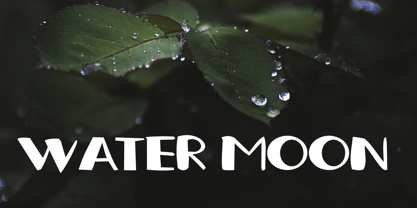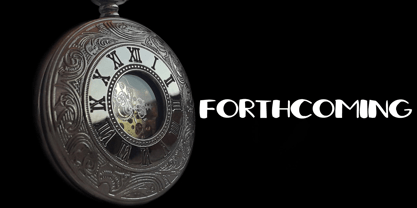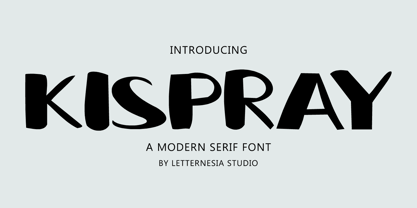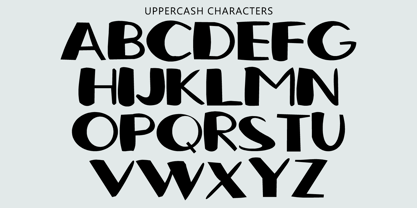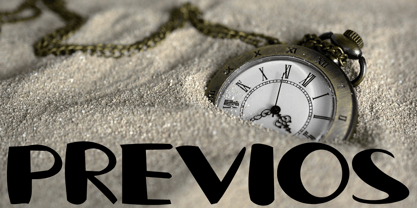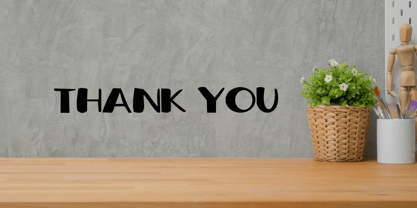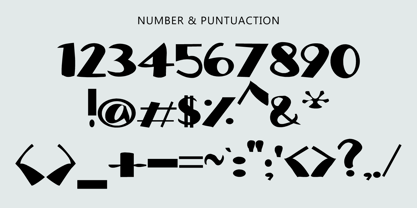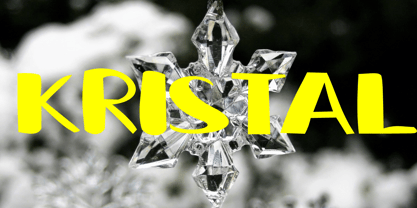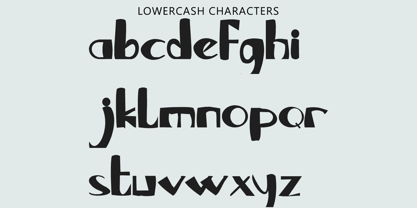
Kispray
by Letternesia studio
The Kispray Font Family was designed by Ta Siyo and published by Letternesia studio. Kispray contains 1 styles. More about this family
Kispray is an elegant and characterful display font, inspired by the soft, refreshing spray of perfume. With letterforms that are smooth yet firm, Kispray brings a feminine, clean, and modern feel—perfect for beauty product branding, clothing labels, or packaging design that needs a sweet but professional touch.
The signature of this font lies in its flowing curves, reminiscent of a scent spreading through the air, and its balanced letter spacing ensures readability without losing artistic flair. Kispray is the ideal choice for designers who want to add a graceful and airy nuance to their visual work.
Designers: Ta Siyo
Foundry: Letternesia studio